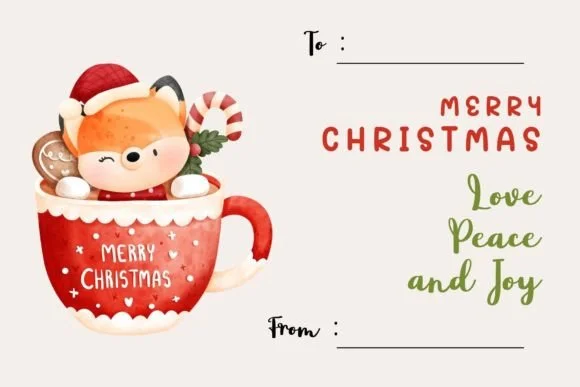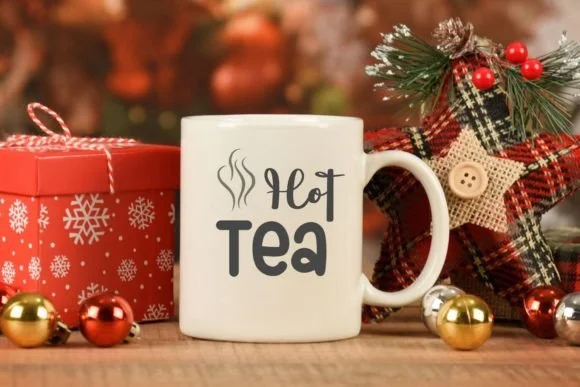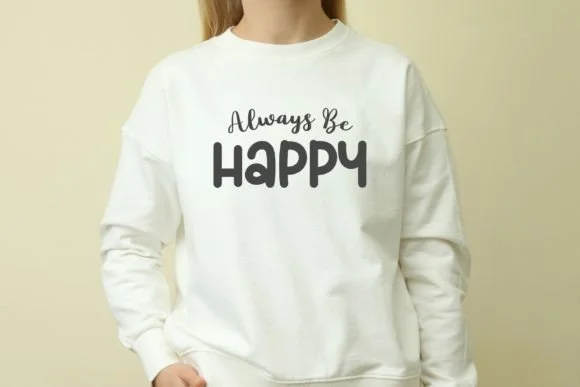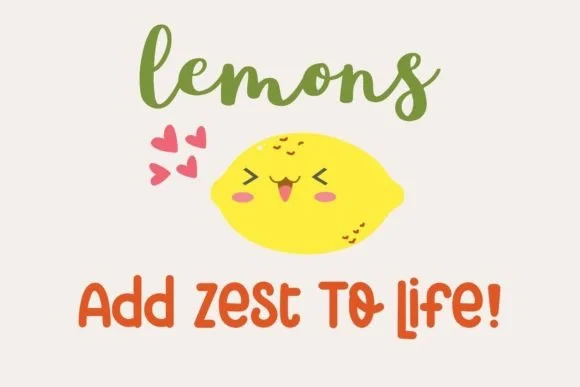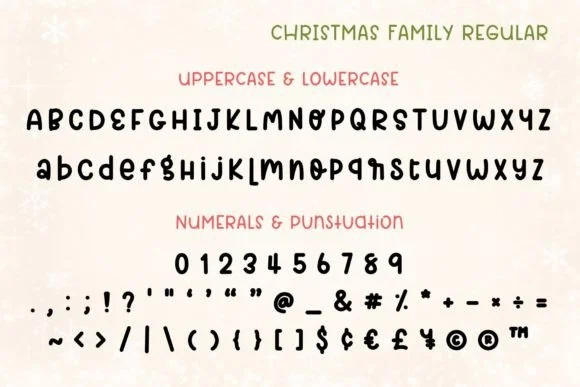
Christmas Family Font
This heartwarming font is perfect for family Christmas cards, holiday reunion invitations, family Christmas newsletters, generational Christmas photos, family tradition announcements, Christmas family recipes, holiday family gatherings, multi-generational Christmas celebrations, family Christmas storytelling, and cherished family holiday memories.
Christmas Family Font is exciting because it captures the profound love and enduring bonds that unite families during the Christmas season through its warm, inclusive letterforms that embrace the multi-generational spirit of family celebrations. The font features comfortable, welcoming characters with gentle curves and nurturing details that reflect the protective warmth of family gatherings, incorporating subtle elements that suggest the interwoven connections between grandparents, and children sharing Christmas traditions together. Each letter showcases the stability and continuity that families provide, with reliable proportions and comforting flourishes that create text feeling as secure and loving as a family embrace around the Christmas tree. The design perfectly captures the essence of Christmas as a time when families come together to create lasting memories and strengthen the bonds that connect generations.
The Christmas Family Font family includes generational style variations: Regular, Bold, Light, Heritage, and Unity versions. The collection features special family elements including connecting flourishes, generational accents, family tree details, and loving ornamental touches. Additional components include family borders, reunion frames, generational decorations, and heartwarming ornamental designs that enhance the font's Christmas family appeal and create cohesive multi-generational holiday themes.
Family photographers and reunion planners will find Christmas Family Font to be an invaluable resource for creating meaningful holiday communications that celebrate the irreplaceable importance of family during Christmas celebrations. This lovingly crafted font transforms ordinary family messages into treasured expressions that honor the sacred bonds and cherished traditions that make Christmas a time of family unity and generational love.
The typeface includes comprehensive character support with family-oriented styling that maintains excellent readability while conveying the warmth, unity, and generational love of Christmas family gatherings. The font's nurturing design ensures beautiful results across both intimate family projects and large family reunion celebrations.
Perfect for family photographers, reunion organizers, multi-generational celebrations, and family-centered Christmas traditions, this font delivers heartfelt visual impact that communicates love, unity, and the precious family bonds that make Christmas the most important time for families to gather, celebrate, and create lasting memories together.